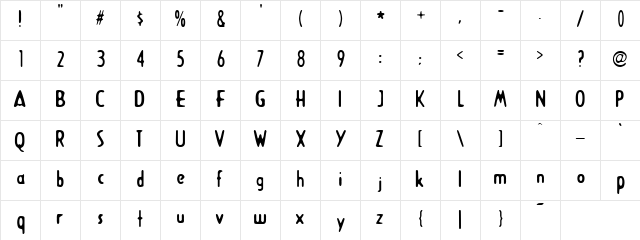
Liquid Nite Regular
| Designer | Andrew Hungerford |
Design Context for Liquid Nite Typeface
Liquid Nite offers clean, dependable letterforms without strong stylistic allegiance, making it a practical choice for designers who need flexibility.